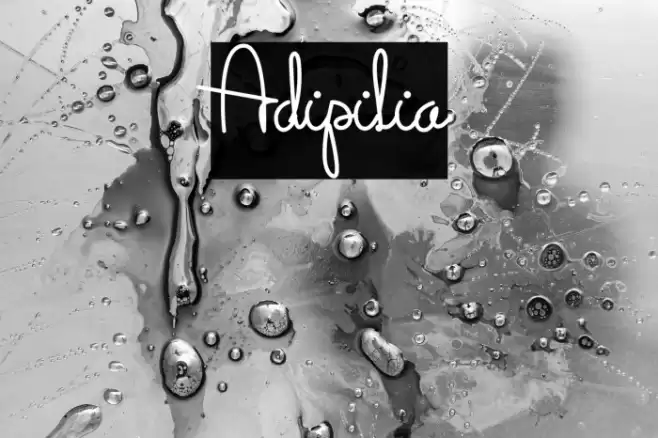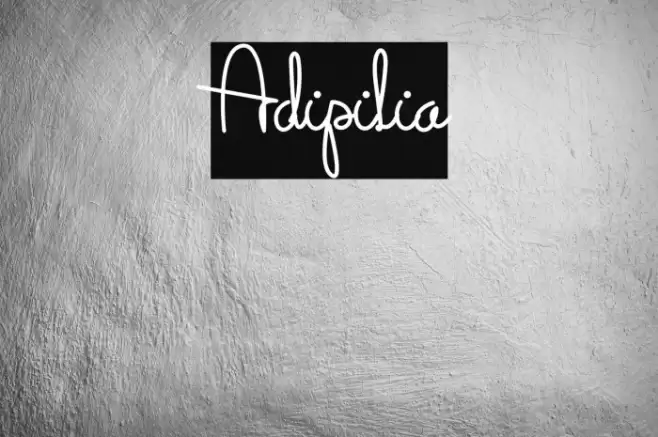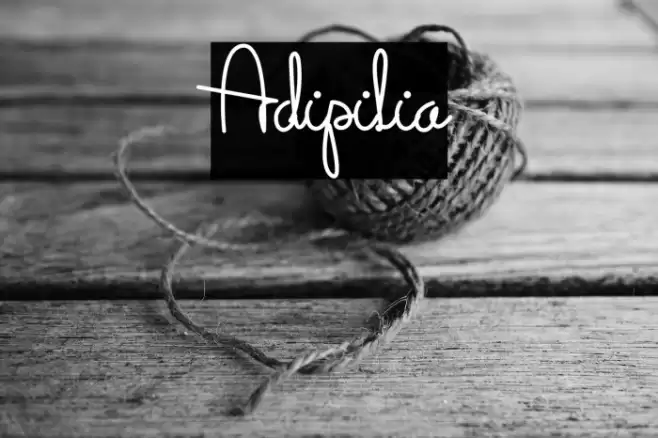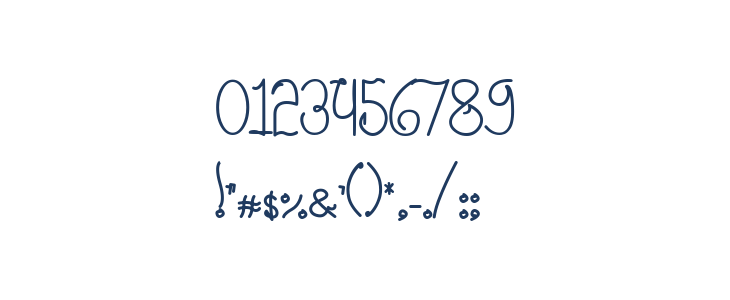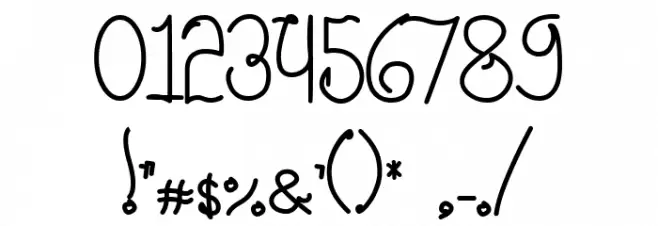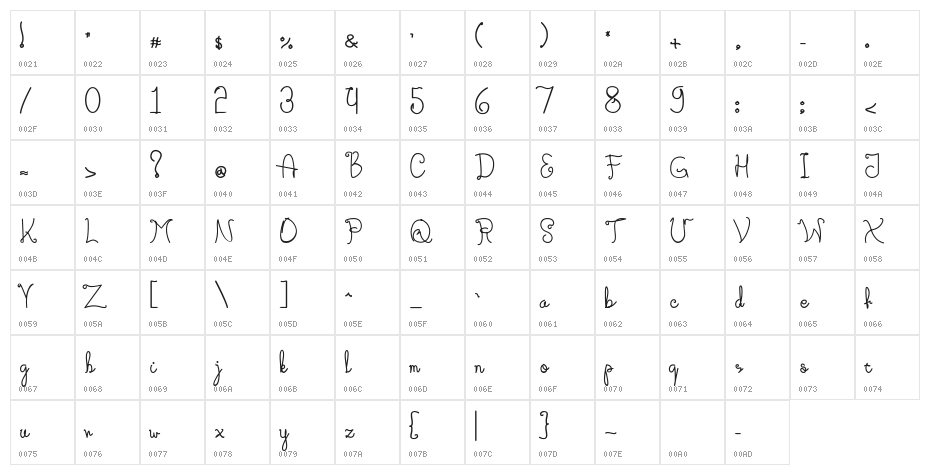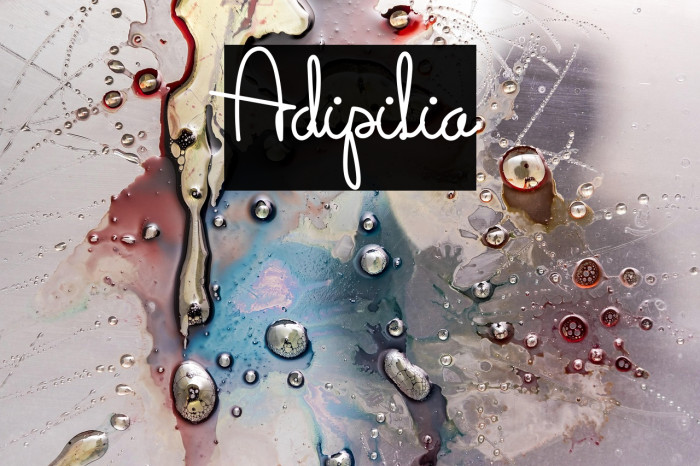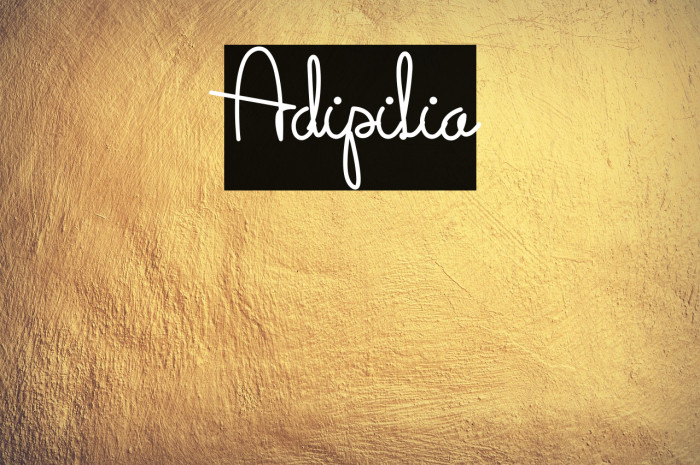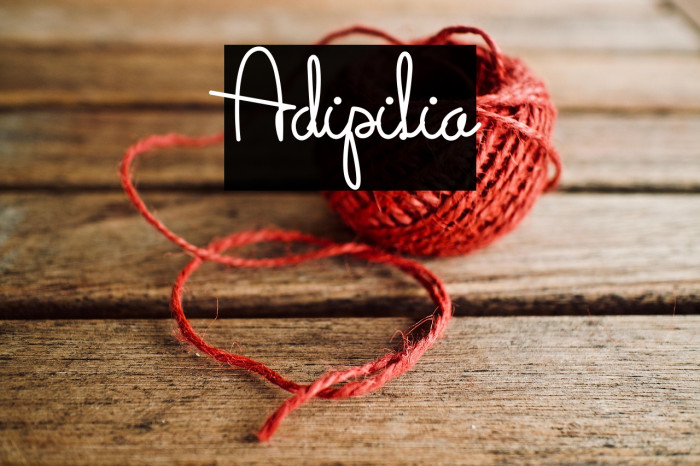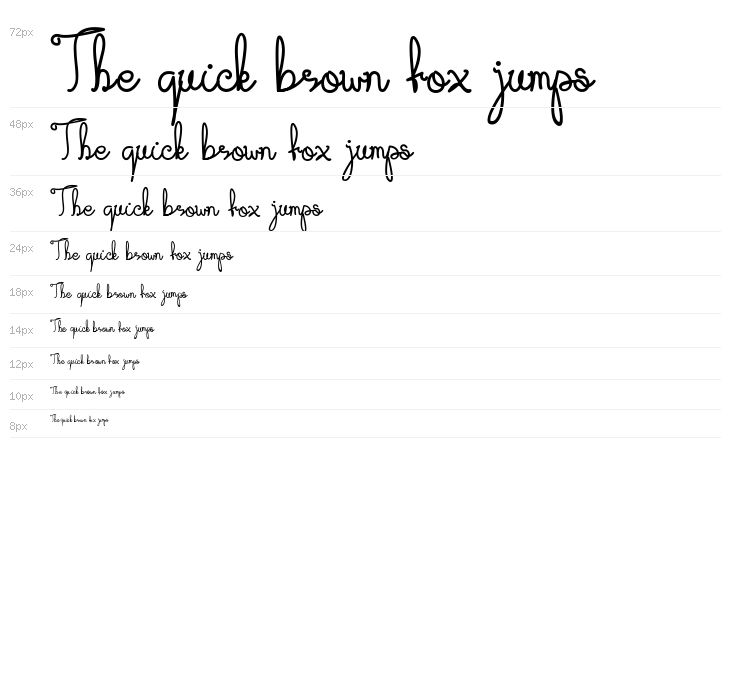
Adipilia Font
Adipilia Description
This font features a whimsical and playful design with a hand-drawn aesthetic. The uppercase letters are characterized by their unique, curly embellishments, giving them a decorative flair. The lowercase letters maintain a consistent style with a slightly more subdued, yet still playful, appearance. Numbers are bold and maintain the same quirky style, ensuring consistency throughout. The special characters are creatively designed, adding to the overall charm of the font. This font is ideal for projects that require a touch of creativity and fun, such as children's books, playful branding, or artistic invitations.
A whimsical, hand-drawn font with decorative curls and playful style from Regular fonts.
- Proposed Projects: Children's books, playful branding, artistic invitations, creative posters.
- Overall Style: Playful, Whimsical, Artistic
- Use Case: Headlines, Logos, Invitations